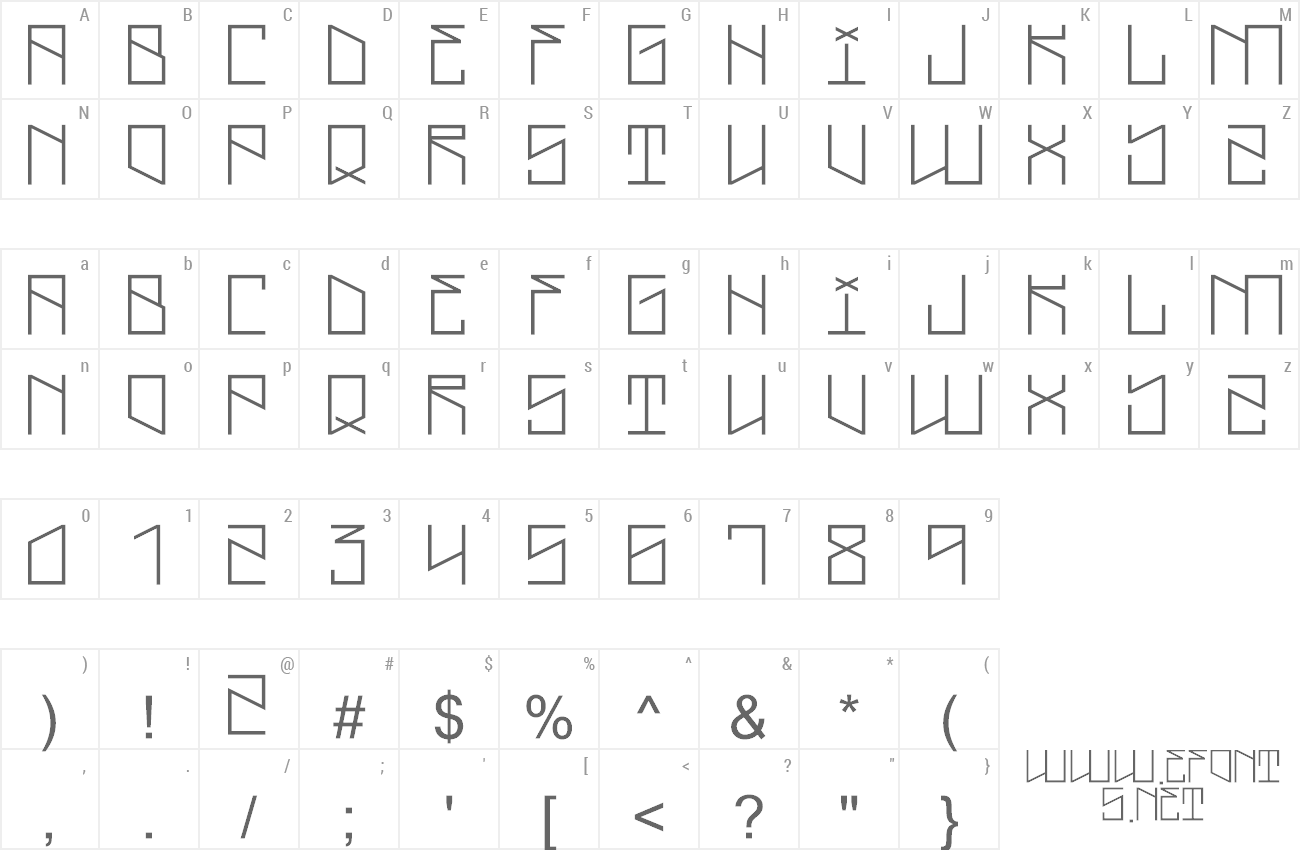
| Font name: | Lightning Cruz |
| Author: | Out of Step Font Company |
| Note by Out of Step Font Company | |
This is a modular geometric font blending the form of fonts like Phoenixians with west coast graffiti details. Best used in italics. Lightning Cruz looks amazing in oblique. Lightning Cruz v1.0 is free for personal use. Lightning Cruz Regular v1.20 adds many new characters including punctuation, and is available exclusively through our store: http://outofstepfontco.com/collections/modern/products/lightning-cruz-regular https://www.facebook.com/OutOfStepFontCompany |